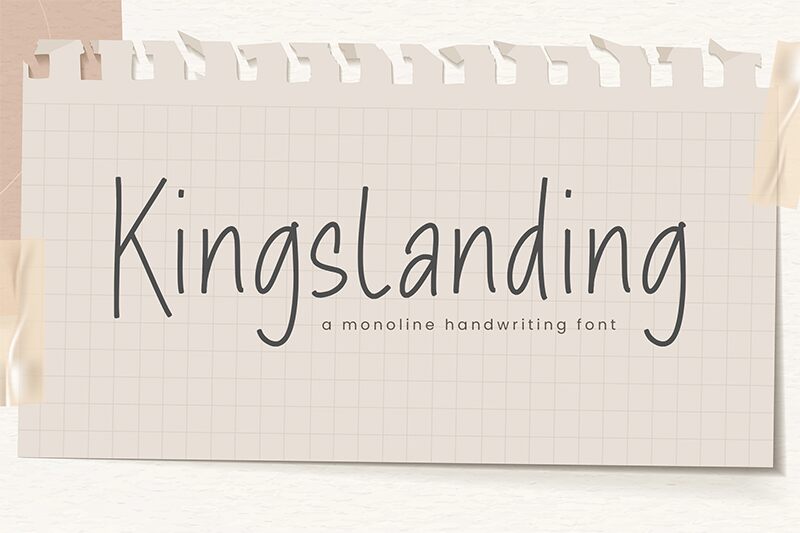
Kingslandling font by Timur Type is a free handwritten font with a condensed and airy style. The casual feel of this light font is ideal for designs that call for an approachable aesthetic. The modern feel built into each letter will help any typography-based project stand out and be successful.
Use this font’s natural flow in personal branding, packaging, product labels, posters, cards, journal pages, advertisements, brochures, websites, apps, blogs and other designs.